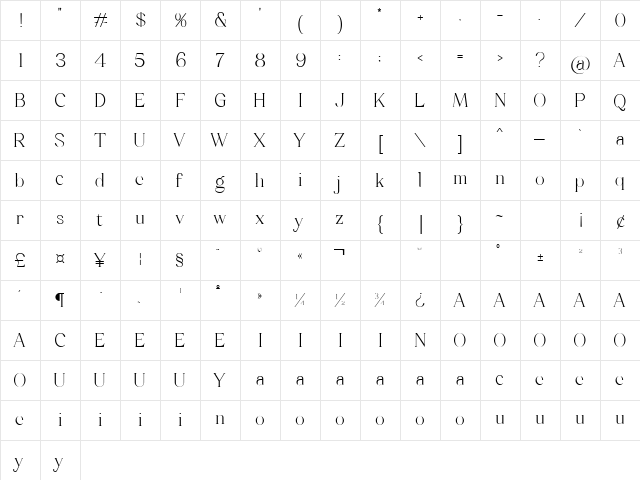
Mitchaella Modern Unique Regular
| Designer | Haris Purnama Putra |
Design Context for Mitchaella Modern Unique Typeface
Mitchaella Modern Unique offers clean, dependable letterforms without strong stylistic allegiance, making it a practical choice for designers who need flexibility.